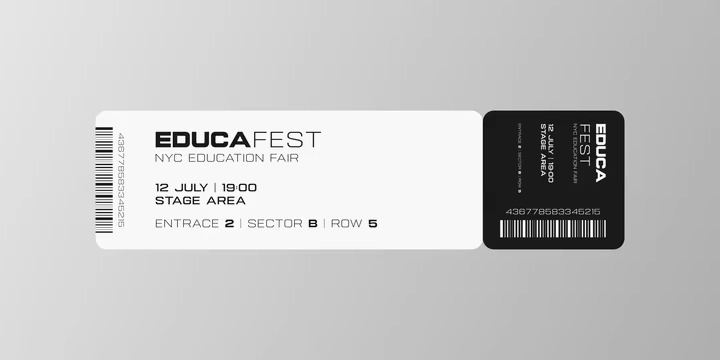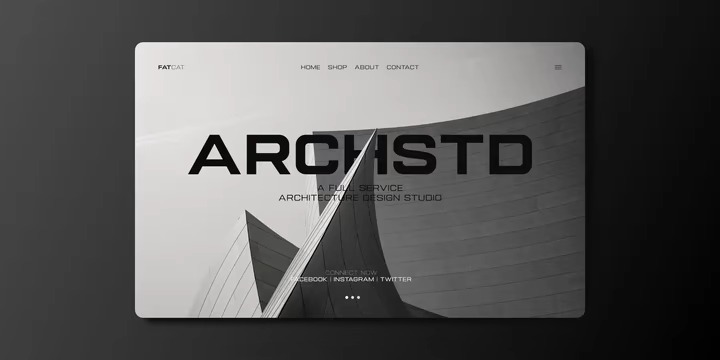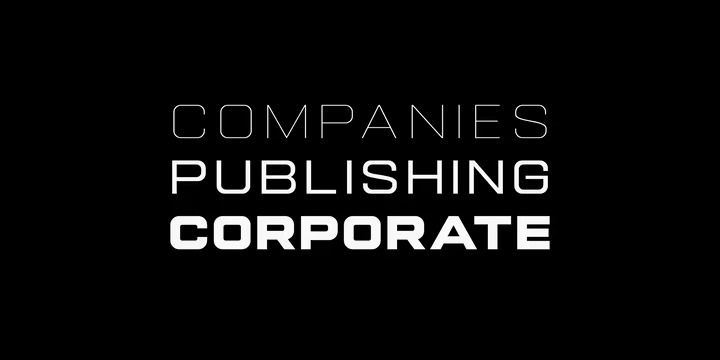
Gemsbuck 01 Sans Serif Font
This is a modern simple sans serif font manufactured by Studio Fat Cat. But it can be used in a variety. It’s suitable for branding, logos, packaging, card-making, magazines, films, posters, websites, etc, so add it to your creative ideas and notice how it makes them stand out!